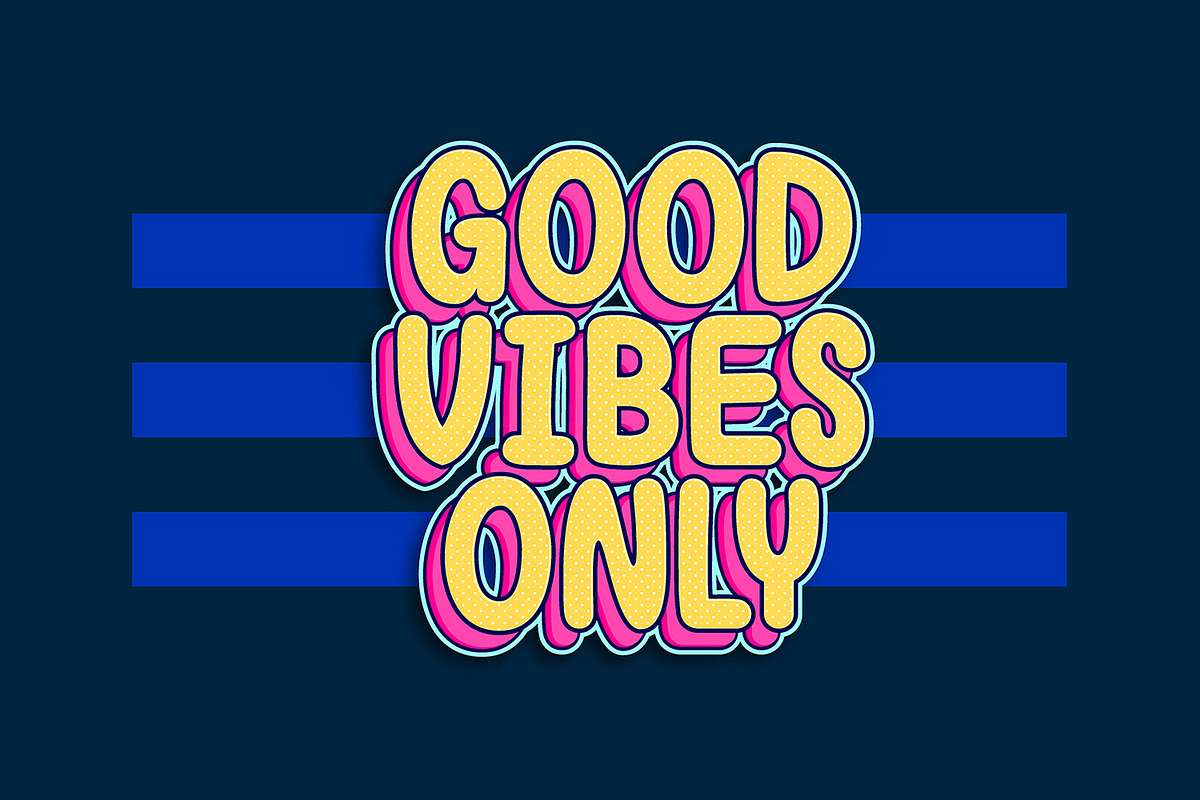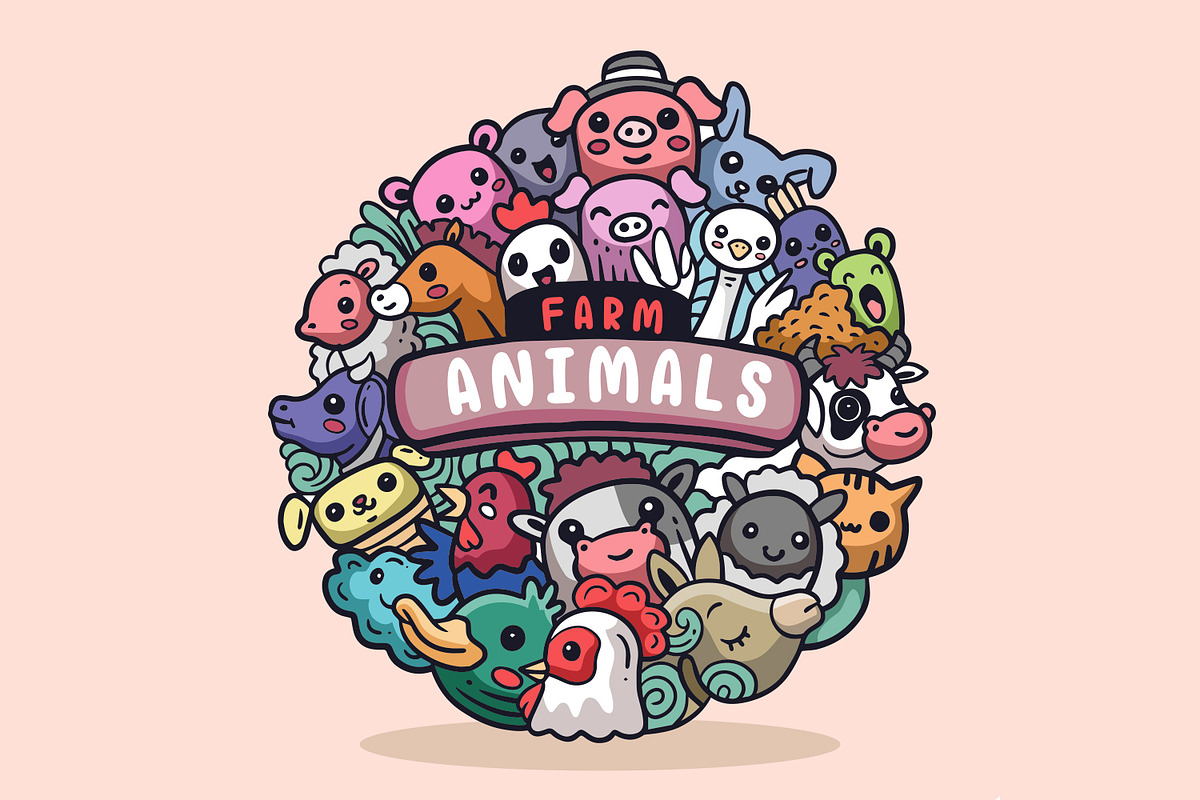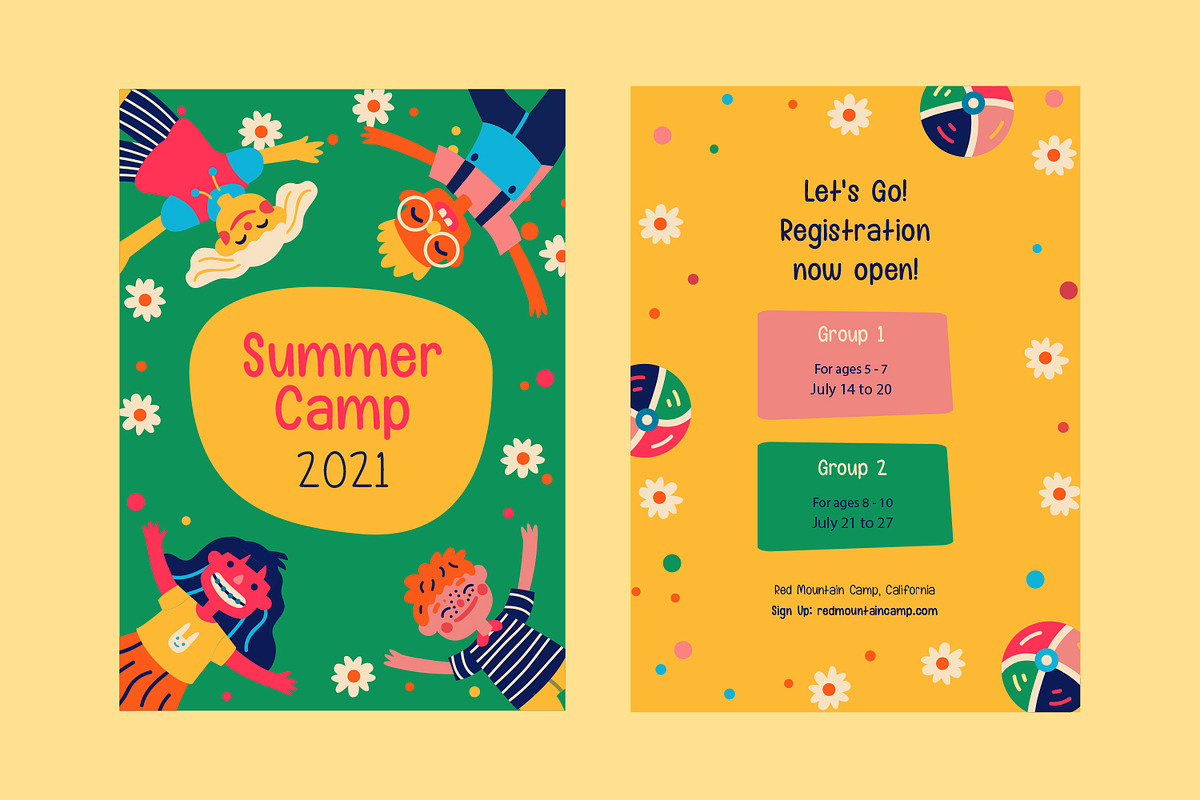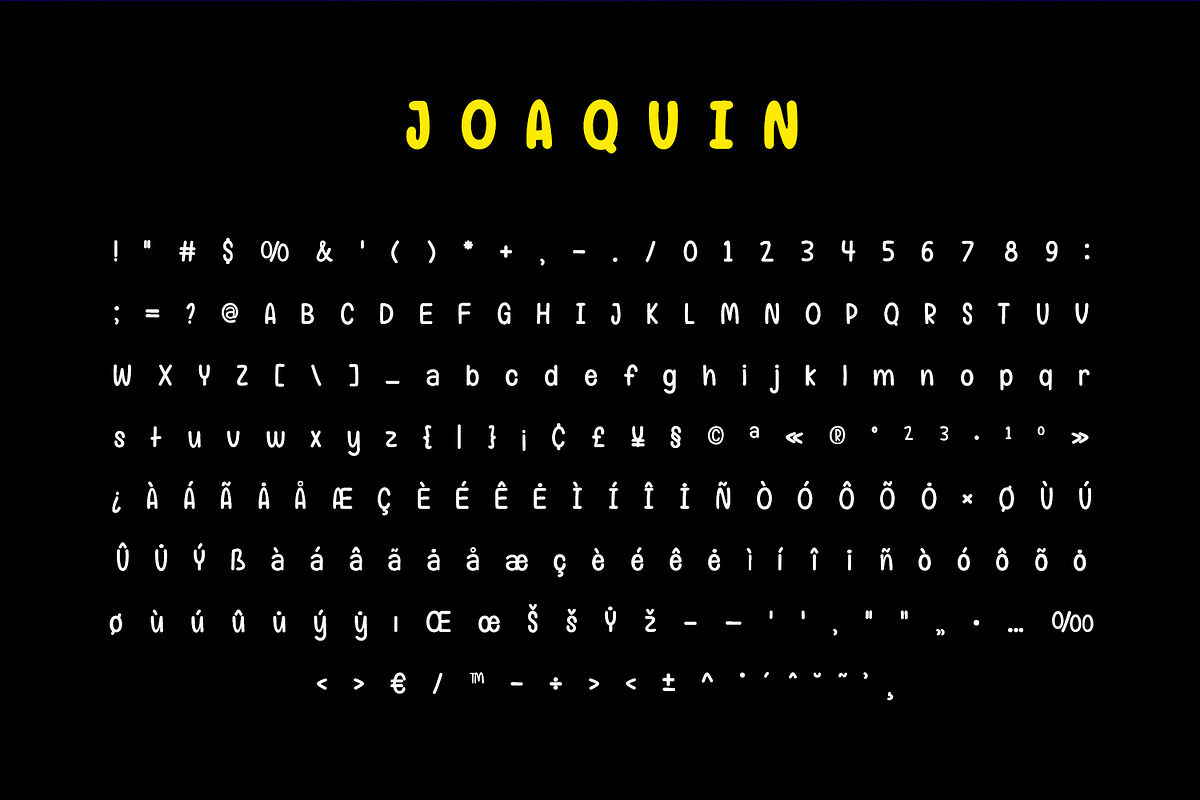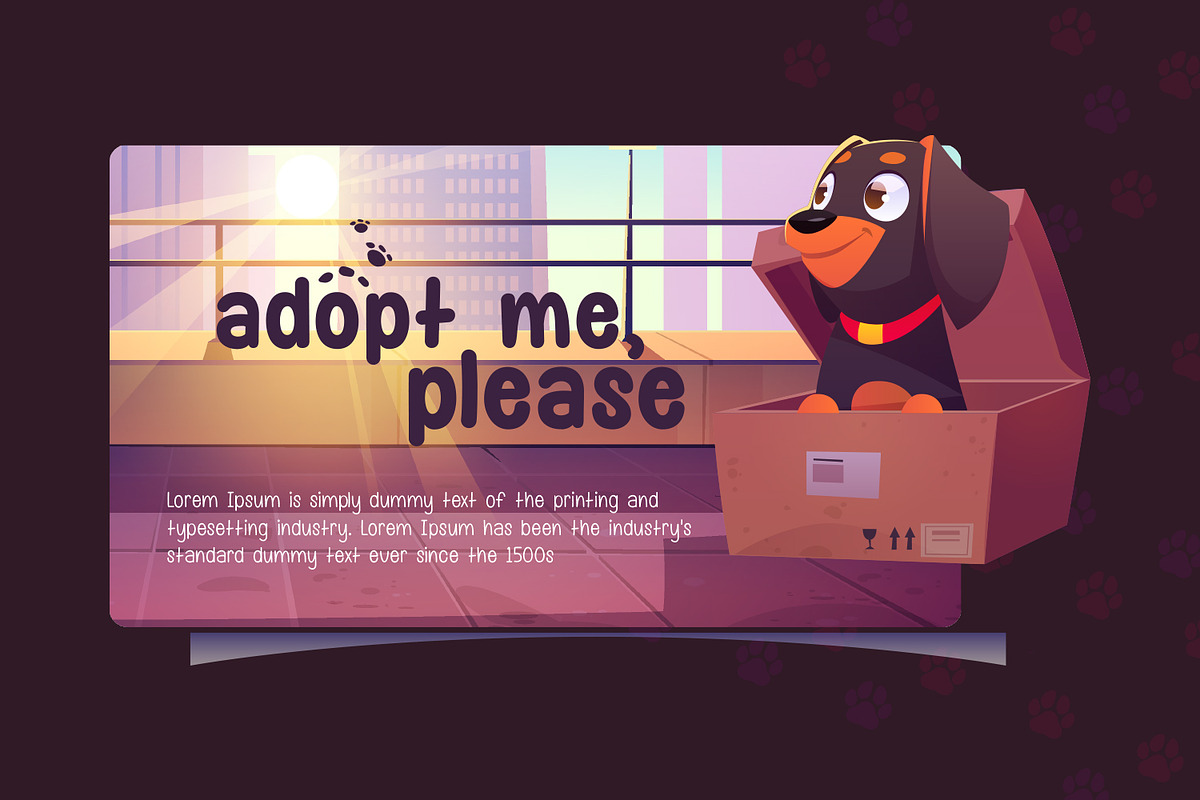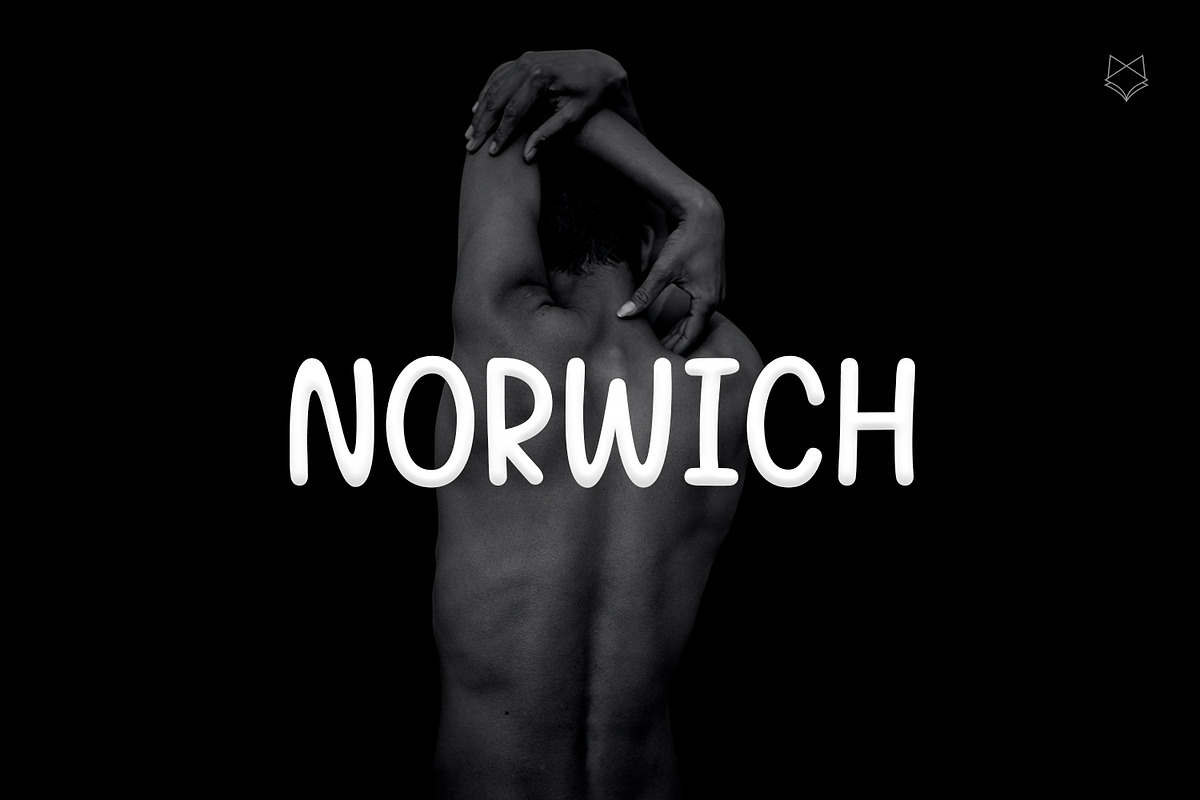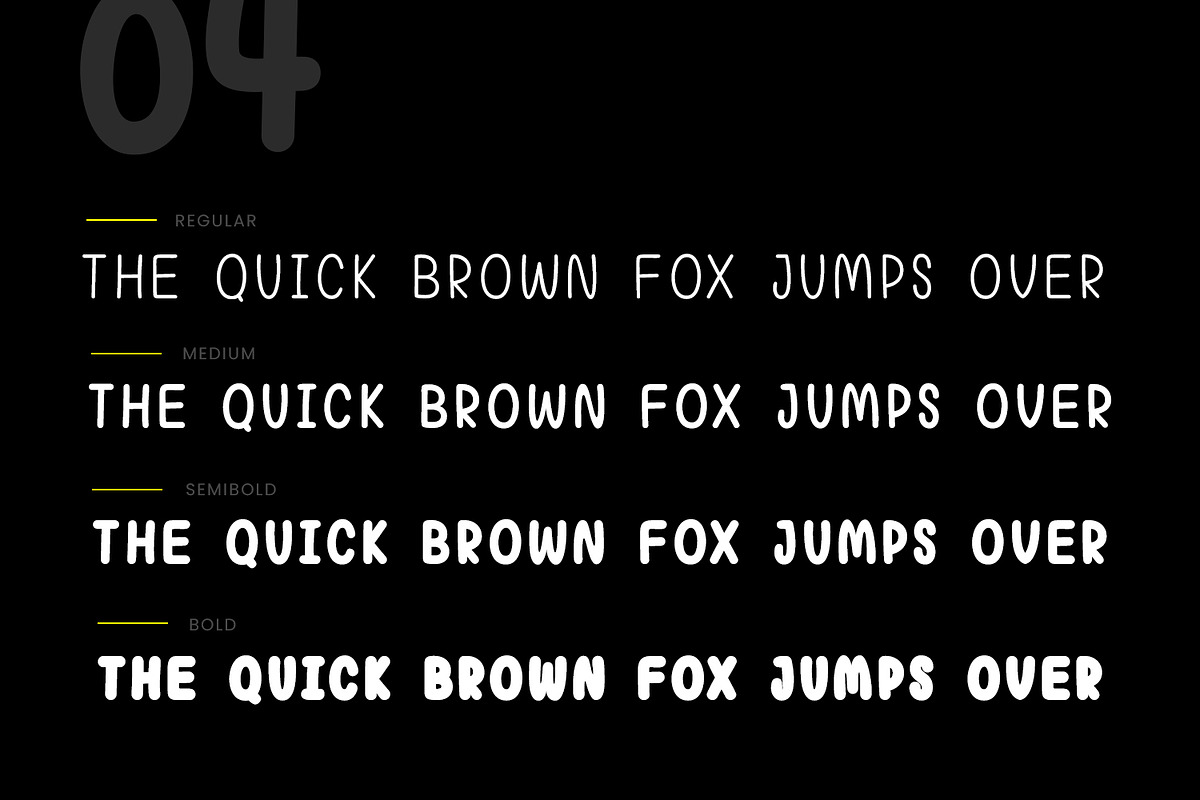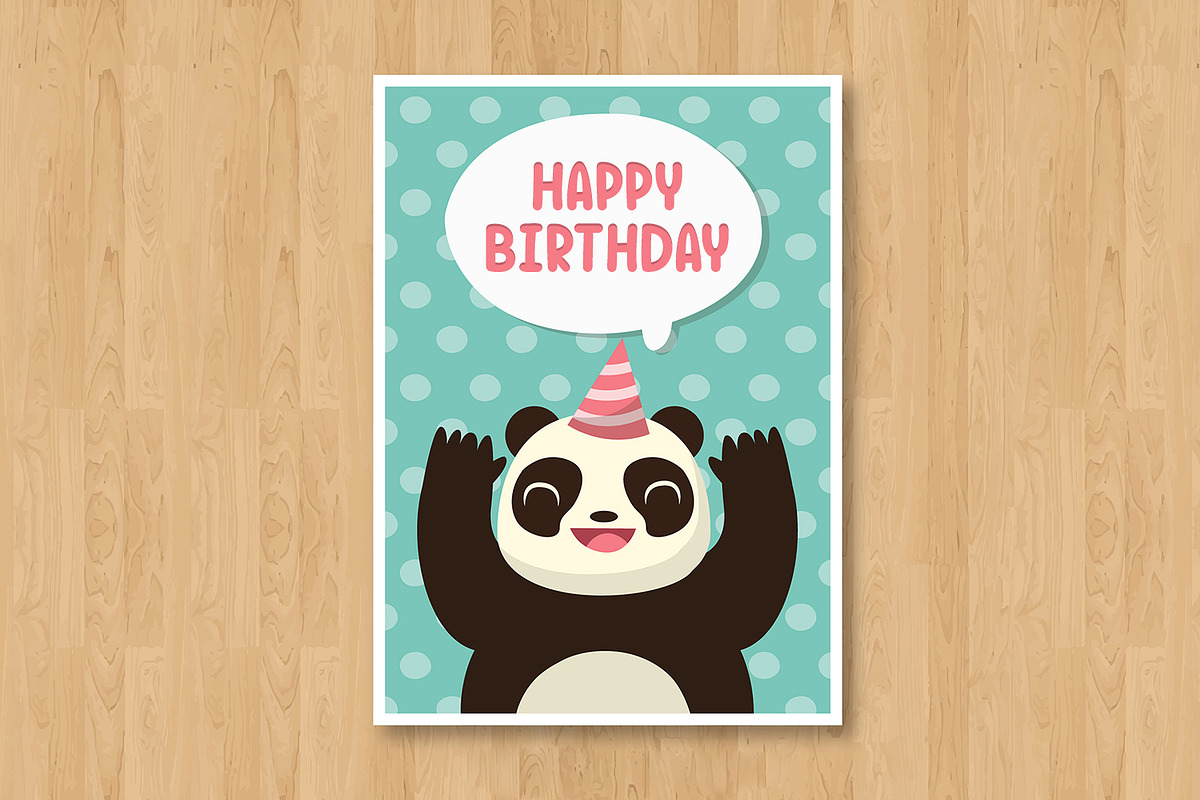
Norwich Funny Display
Norwich Display is a Brand New Elegant Bubbly Typeface with a powerful font family. It has a dependable and uncompromising style, with controlled letterforms and modern touches. It looks amazing in funny logos, cartoon posters, and movies. Norwich Font would be perfect for kid's craft, comic posters, Captions, bubbly texts, and cute funny boards. The various weights allow you to experiment with a wide range of applications. It's created to make an impression without sacrificing its beauty and readability. It's shown a clean, bubbly, warmth, funny, yet still purposed to be versatile
The Typeface includes four Weights - Regular, Medium, SemiBold, and Bold
- All offer wide language support
- Uppercases and Lowercases.
- Numerals and extended punctuation.